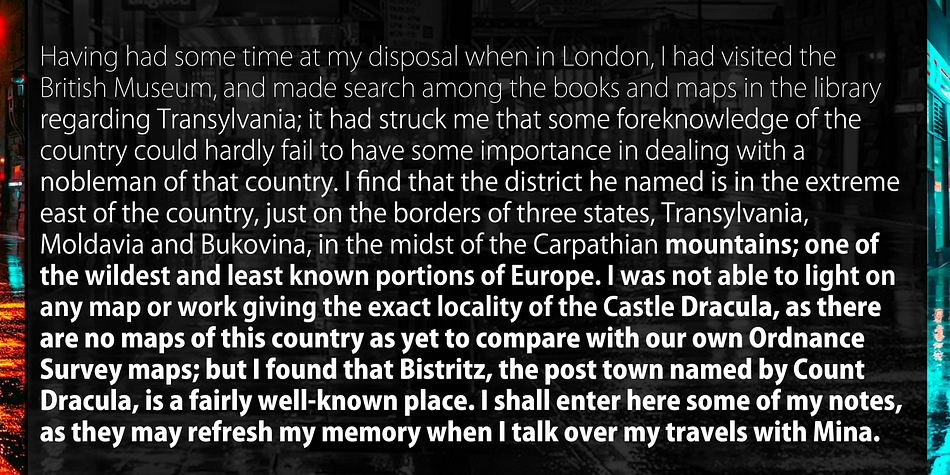
Kozuka Gothic® Pr6N is a sans serif font family. This typeface has six styles and was published by Adobe.
The Kozuka Gothic typeface family, composed of six different weights to cover various uses ranging from body text composition to headlines, have now been completed as OpenType fonts.
Kozuka Gothic provides a clear image common to Kozuka Mincho, but also gives the visual strength needed for a Gothic typeface.
Kozuka Gothic is Adobe’s second original Japanese typeface family following Kozuka Mincho. With the systematic design methods developed for Kozuka Mincho, we have again succeeded in adding to this new Gothic typeface visual strength and clarity, as well as stylistic characteristics common to those of Kozuka Mincho.
The Kozuka Gothic family is composed of six weights in total: EL (Extra Light) which is very light, L (Light), R (Regular), and M (Medium) that cover purposes from body text to display lines for sub-headings, and the heavier B (Bold) and H (Heavy) which are effective for display lines set in larger type sizes. Kozuka Gothic has systematically designed glyph shapes with good design consistency, and fine printability. Retaining the clear and modern feeling of Kozuka Mincho, Kozuka Gothic has the visual strength required for a Gothic typeface.
Masahiko Kozuka, Advisor, who has been involved with many text typeface design projects, supervised, and lead the typeface design project of Kozuka Mincho, and Adobe’s Japanese type design team produced the typeface. Kozuka Gothic, whose style is based on traditional Japanese sans-serif design, was created with Adobe’s new and original design methods developed for making digital typefaces suitable for today’s uses. As a useful typeface family paired with Kozuka Mincho, Kozuka Gothic will widen the user’s creative typographic range.